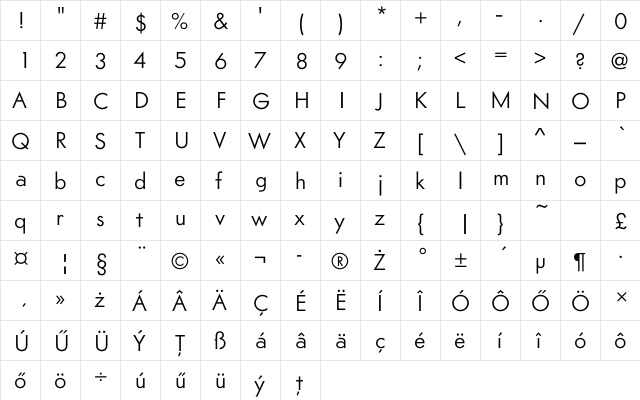
Am Sans light Regular
| Foundry | Volker Busse Berlin |
Design Context for Am Sans light Typeface
Am Sans light is a composed and adaptable typeface that performs quietly and consistently across a wide range of design contexts. Its slender proportions lend an understated elegance to any composition.